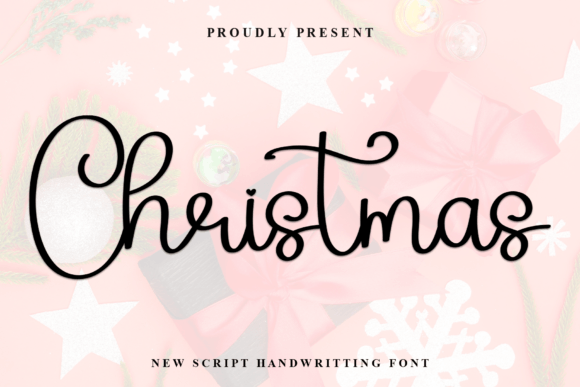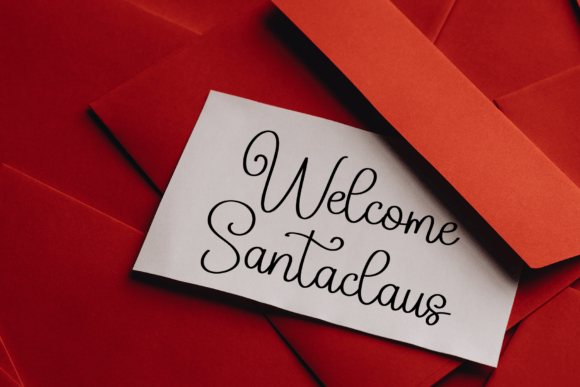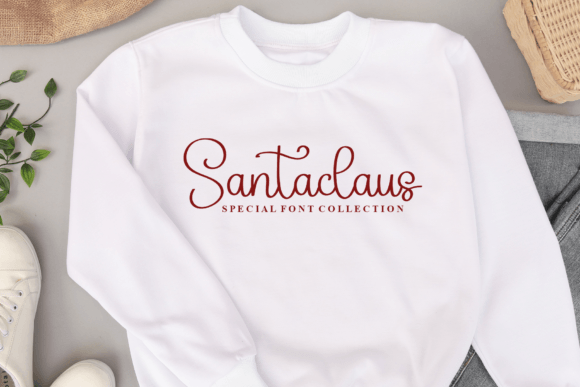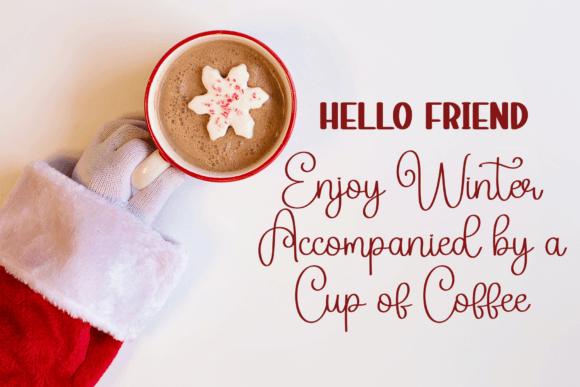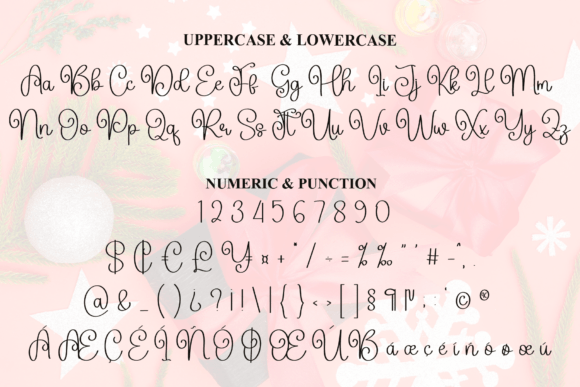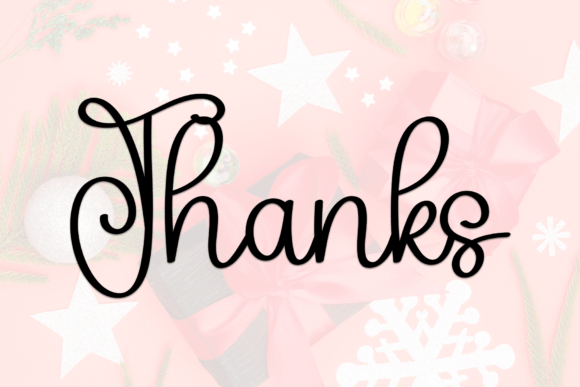
The Magic of Christmas Font
As the holiday season approaches, I find myself flipping through design inspirations, searching for the perfect way to capture the essence of Christmas. It’s a moment of creative bliss, where the world seems to slow down, and all that matters is the sparkle of joy and love. And then, it hits me – the perfect font to evoke the magic of the season.
Enter Christmas Font, a charming handwritten font that embodies the heart and soul of Christmas. With its smooth strokes and organic lines, this font creates a relaxed atmosphere, perfect for a variety of design projects. Whether you’re designing branding, invitations, or social media graphics, Christmas Font is sure to add a touch of warmth and personality to your work.
For designers, Christmas Font is a valuable asset, offering a unique and creative way to express the spirit of the season. Its versatility and charm make it an ideal choice for any project, from festive holiday cards to cozy winter wonderland scenes. So why not give Christmas Font a try and see how it can add some magic to your designs?
Key Features of Christmas Font
- Unique Characteristics: Christmas Font features a festive and playful design, with intricate details and ornaments that evoke the spirit of the holiday season.
Designer Review: Christmas Font
Overall, I’d say the Christmas Font has some great aspects, but it also has some limitations that make it less desirable for widespread use. ✨
- Unique and festive design elements, perfect for holiday-themed projects.
- The font’s playful and whimsical feel makes it ideal for children’s books, advertisements, and other creative projects.
- Good for adding a touch of holiday cheer to digital and print materials.
- ⚠️ Limited font sizes and styles, making it less versatile for more complex designs.
While the Christmas Font has some great qualities, its limitations prevent it from being a top choice for designers. It’s perfect for quick, one-off projects or for adding a festive touch to existing designs. However, for more complex or long-term projects, I would recommend exploring other font options.
Use the Christmas Font to create:
– Invitations and greeting cards
– Holiday-themed logos and branding
– Decorative text and titles for presentations and documents